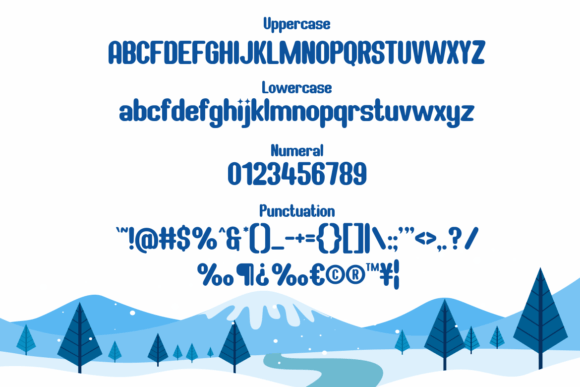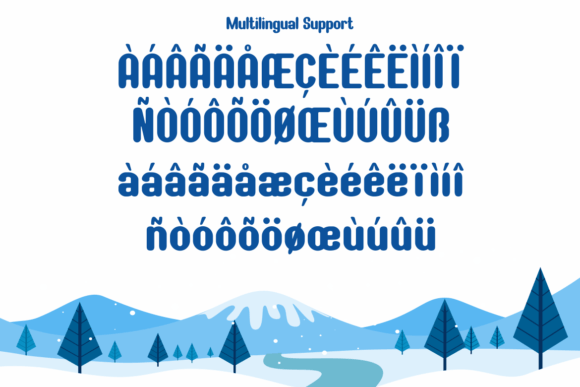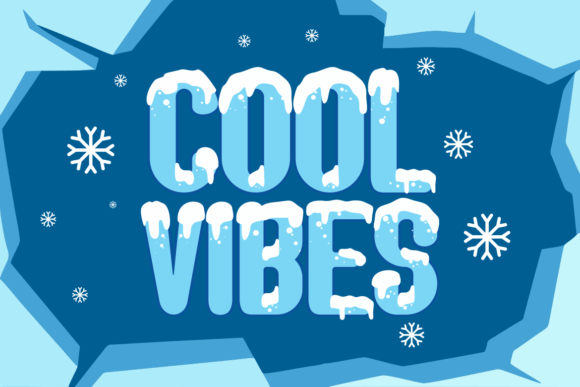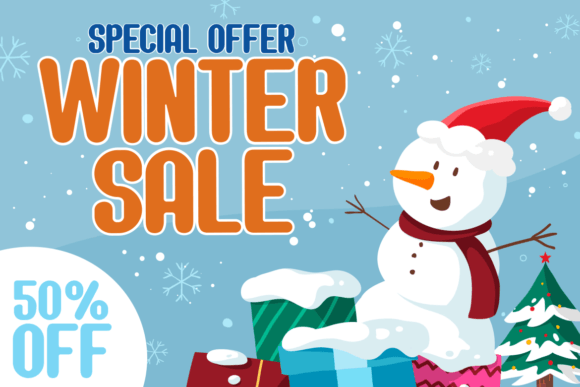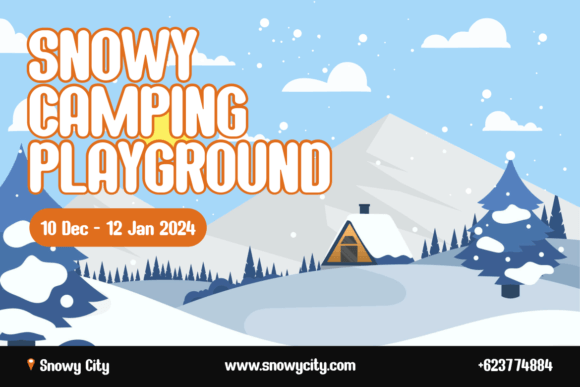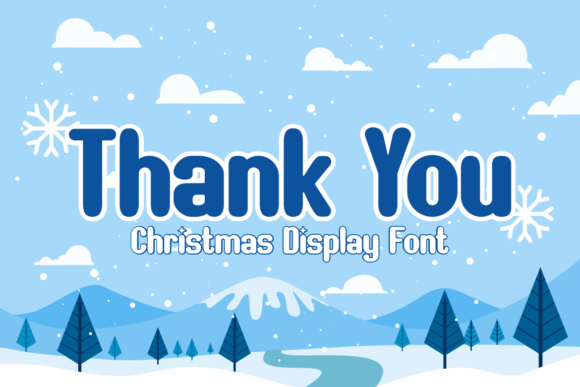
Frostbites Font: The Ultimate Christmas Font for Designers and Crafters
As the holiday season approaches, designers and crafters are on the lookout for the perfect font to create a festive and merry atmosphere in their projects. Look no further than Frostbites Font, a specially designed typeface that captures the essence of Christmas. In this article, we’ll dive into the world of Frostbites Font, exploring its features, uses, and benefits for designers and crafters.
What is Frostbites Font?
Frostbites Font is a unique and captivating typeface specifically designed to create a Christmas atmosphere and mood. Its frosty and icy texture gives it a distinctive look that’s perfect for holiday-themed projects. This font is often used in graphic design, greeting cards, posters, and various other visual elements related to the celebration of Christmas.
Features of Frostbites Font
Frostbites Font boasts several features that make it a standout choice for designers and crafters:
- Frosty Texture: The font’s frosty texture gives it a realistic and icy look that’s perfect for winter-themed projects.
- Christmas-themed: Frostbites Font is specifically designed for the holiday season, making it an ideal choice for Christmas cards, posters, and other festive projects.
- High-quality: The font is designed with high-quality and clear lettering, making it perfect for use in a variety of projects, from small to large.
Uses of Frostbites Font
Frostbites Font is a versatile typeface that can be used in a variety of projects, including:
- Christmas Cards: Create beautiful and festive Christmas cards with Frostbites Font.
- Posters and Flyers: Use Frostbites Font to create eye-catching posters and flyers for holiday events and promotions.
- Graphic Design: Add a touch of festive flair to your graphic design projects, such as holiday-themed logos, icons, and graphics.
- Crafting: Use Frostbites Font to create festive and fun crafts, such as holiday-themed scrapbooking pages, journal entries, and paper crafts.
Benefits of Using Frostbites Font
Using Frostbites Font in your projects offers several benefits:
- Instant Holiday Atmosphere: Frostbites Font instantly creates a festive and merry atmosphere in your projects, perfect for the holiday season.
- Unique and Eye-catching: The font’s frosty texture and Christmas-themed design make it a unique and eye-catching addition to any project.
- Time-saving: With Frostbites Font, you can quickly and easily create festive and fun projects without spending hours designing a custom font.
Tips for Using Frostbites Font
Here are some tips for using Frostbites Font in your projects:
- Pair with Other Festive Fonts: Pair Frostbites Font with other festive fonts to create a unique and eye-catching look.
- Experiment with Colors: Experiment with different colors and textures to add depth and interest to your projects.
- Use in Combination with Other Design Elements: Use Frostbites Font in combination with other design elements, such as images and graphics, to create a cohesive and festive look.
Frostbites Font is a unique and captivating typeface that’s perfect for designers and crafters looking to create a festive and merry atmosphere in their projects. With its frosty texture, Christmas-themed design, and high-quality lettering, Frostbites Font is an ideal choice for holiday-themed projects. Whether you’re creating Christmas cards, posters, or crafts, Frostbites Font is sure to add a touch of festive flair to your work.